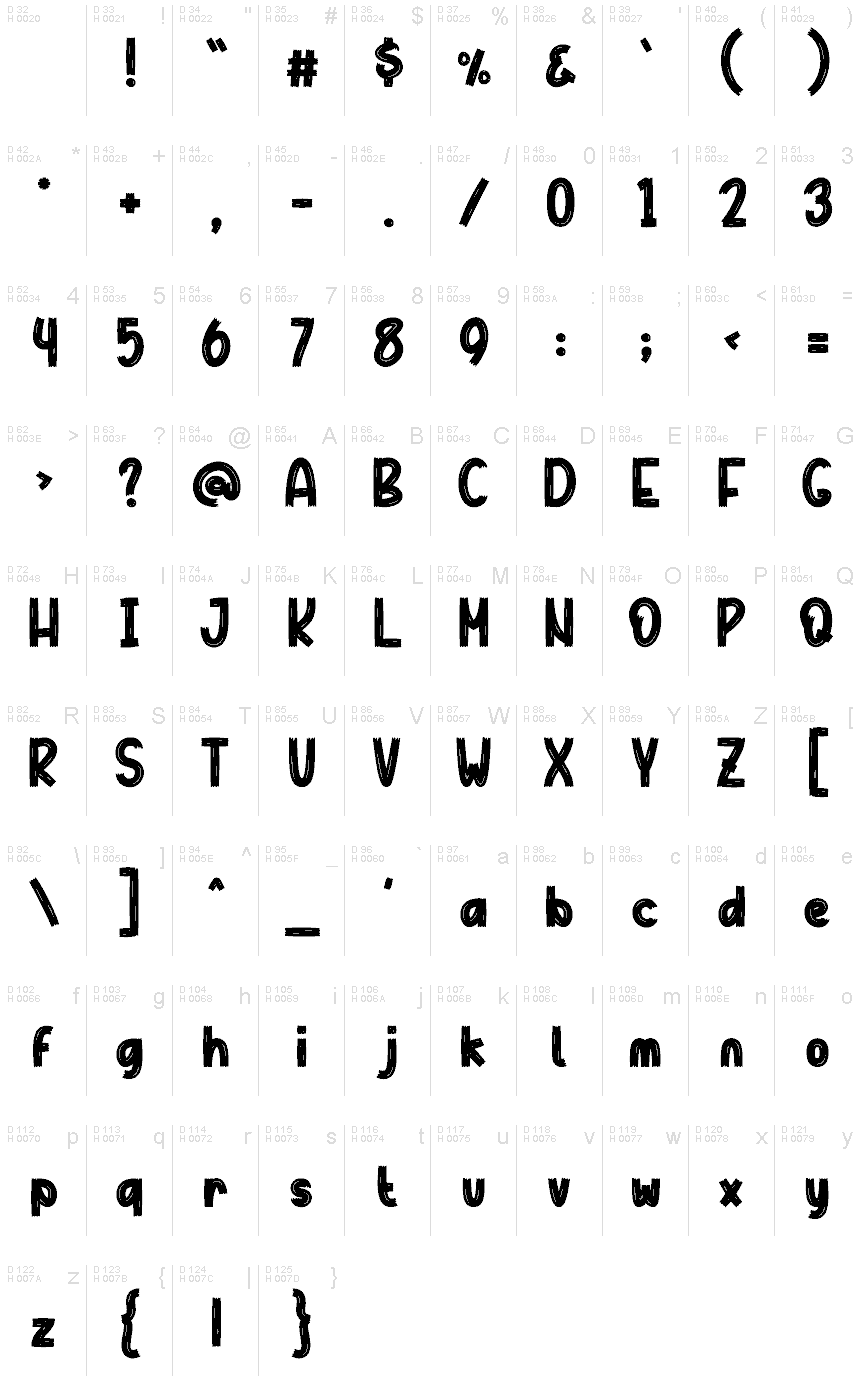
Queencard
Queencard font by Scratchones is a bold brush typeface with a rough texture and distressed appearance. Infused with artistic flair and an expressive design, it brings a casual yet edgy vibe to any project. This font captures the essence of mid-20th-century art movements that embraced handmade aesthetics.